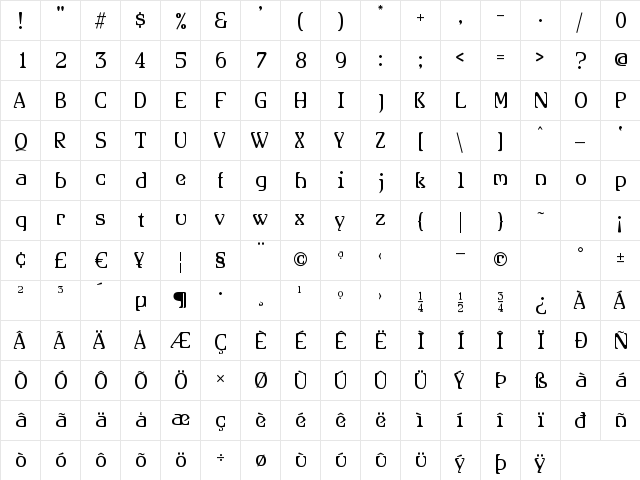
All Hooked Up Regular
| Foundry | Objets Dart |
| Designer | Darren Rigby |
Design Context for All Hooked Up Typeface
All Hooked Up offers clean, dependable letterforms without strong stylistic allegiance, making it a practical choice for designers who need flexibility.
Pro Tip: Pair All Hooked Up with a font of contrasting weight or personality to build a more expressive typographic hierarchy.